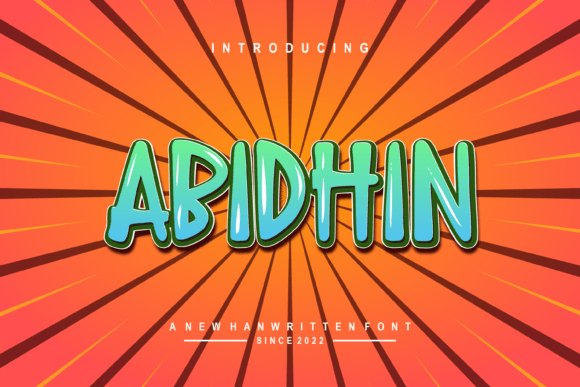
The Perfect Blend of Style and Relevance: Discover the Abidhin Font
Have you ever been stuck on a design project, unable to find the perfect font to bring your vision to life? You’re scrolling through font libraries, and nothing seems to capture the essence of your creative idea. Then, suddenly, you stumble upon a font that makes you go ‘aha!’ – and that’s exactly what happened to many designers when they discovered the Abidhin Font.
The Abidhin Font is a modern display font that adds a charming touch of style to any design project. Its unique blend of elegance and playfulness makes it the perfect choice for those who want to stand out from the crowd while still maintaining a modern look. Whether you’re designing a logo, a brochure, or a social media campaign, the Abidhin Font is sure to bring a fresh and interesting perspective to your work.
For designers, the Abidhin Font is a valuable addition to any toolkit. Its versatility and unique style make it a great choice for a wide range of projects, from branding to advertising. With the Abidhin Font, you’ll be able to create designs that are both visually striking and relevant to modern audiences.
Abidhin Font Key Features
- Font Family: Abidhin Font is a unique, handcrafted script font designed for artistic and creative applications.
- Character Set: Abidhin Font includes a wide range of characters, including uppercase and lowercase letters, numbers, and punctuation marks.
- Unique Characteristics: Abidhin Font features a distinctive, handwritten style with subtle flair and elegance, making it perfect for creating eye-catching headings and titles.
Abidhin Font Review
Overall, I have mixed feelings about the Abidhin font. While it has some great qualities, there are also some limitations that make it less appealing to me.
- ✨ The font has a unique and elegant aesthetic, which can be perfect for creative projects or titles.
- ✨ It comes in a variety of weights and styles, making it versatile and suitable for different design applications.
- ✨ The font is highly legible, even at smaller font sizes, which is a must for any font.
- ⚠️ The font may be too ornate for some design projects, making it less suitable for more straightforward or minimalist designs.
- ⚠️ The font may not be suitable for body text, as it can be quite decorative and may not provide the best reading experience.
- ⚠️ The font lacks a more comprehensive character set, which may limit its use in languages that require more advanced typography.
While the Abidhin font has some great qualities, its limitations make it less appealing to me as a designer. However, it may still be suitable for specific design projects or applications where its unique aesthetic is desired.
Tips for Getting the Most Out of Abidhin Font
Here are some tips to help you get the most out of the Abidhin Font:
- Use Abidhin Font for headings and titles to create a visually appealing contrast with body text.
- Experiment with different font sizes and colors to create a unique and eye-catching design.
- Pair Abidhin Font with other fonts to create a harmonious and balanced design.
Comparison to Abidhin Font: Amiri Font is more elegant and refined, making it suitable for high-end projects and luxury brands. It has a more complex and detailed design compared to Abidhin Font, which is simpler and more modern.
2. Noto Sans Arabic
Noto Sans Arabic is a modern sans-serif font that is designed to be highly legible and versatile. It is suitable for body text, headings, and titles, and is ideal for projects that require a clean and minimalist design.
Q: What is the recommended font size for Abidhin Font?
The recommended font size for Abidhin Font varies depending on the application and intended use. However, a general guideline is to use font sizes between 12-24 points for body text and 48-72 points for headings.